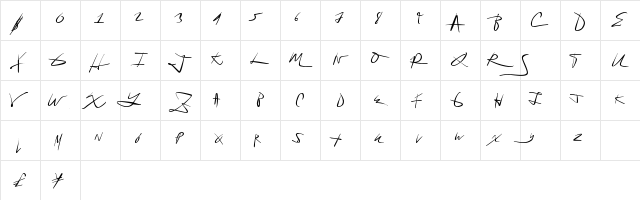
ForSale Regular
Design Context for ForSale Typeface
ForSale is a composed and adaptable typeface that performs quietly and consistently across a wide range of design contexts.